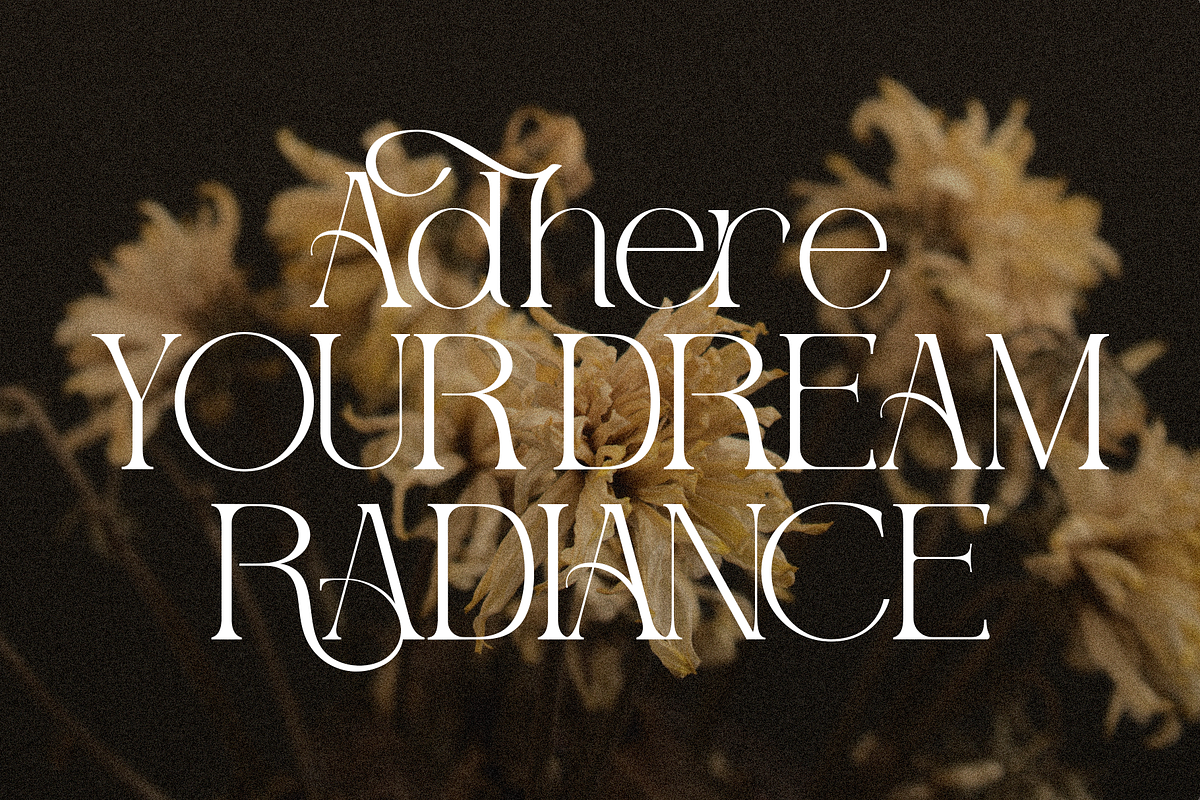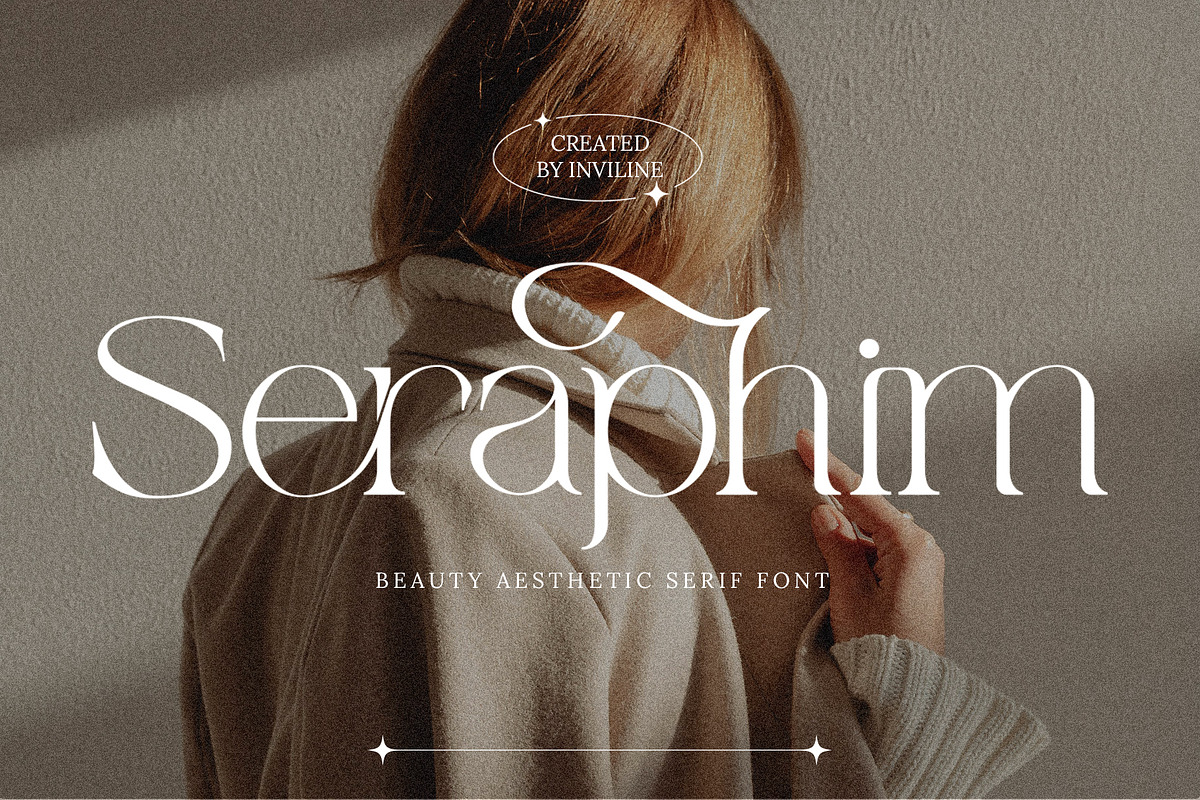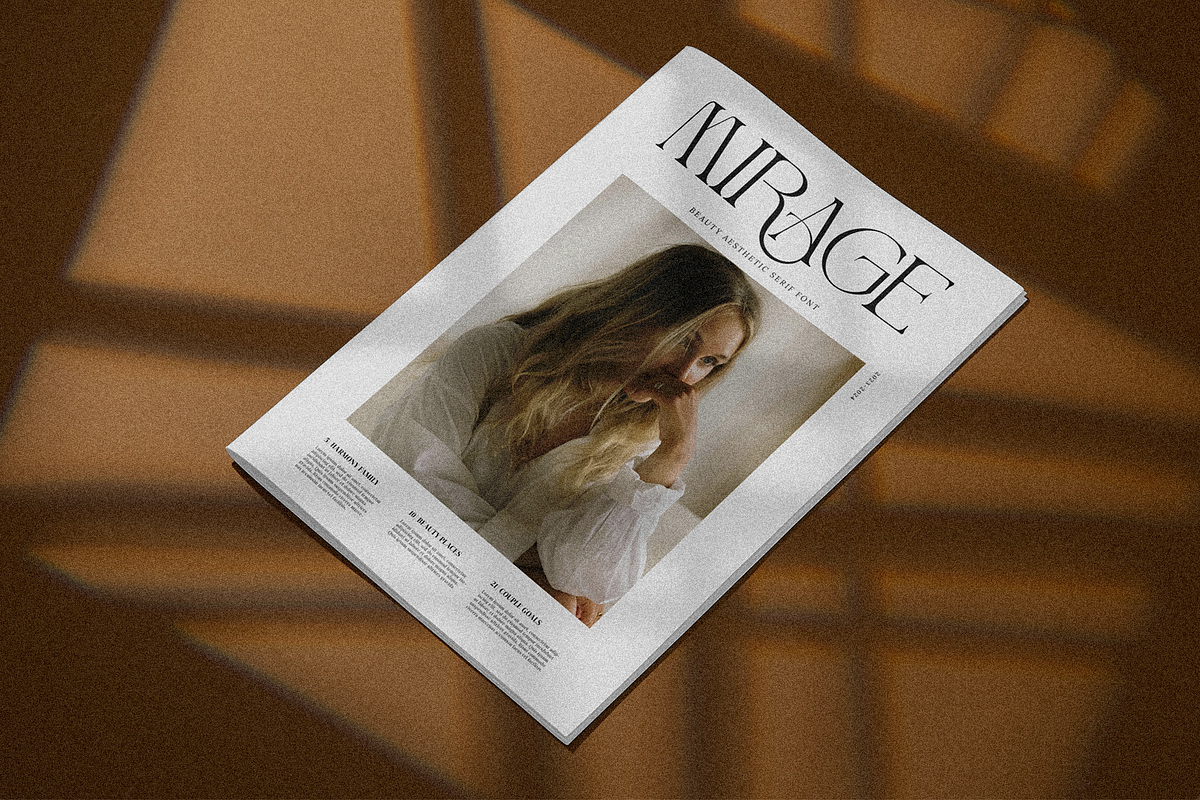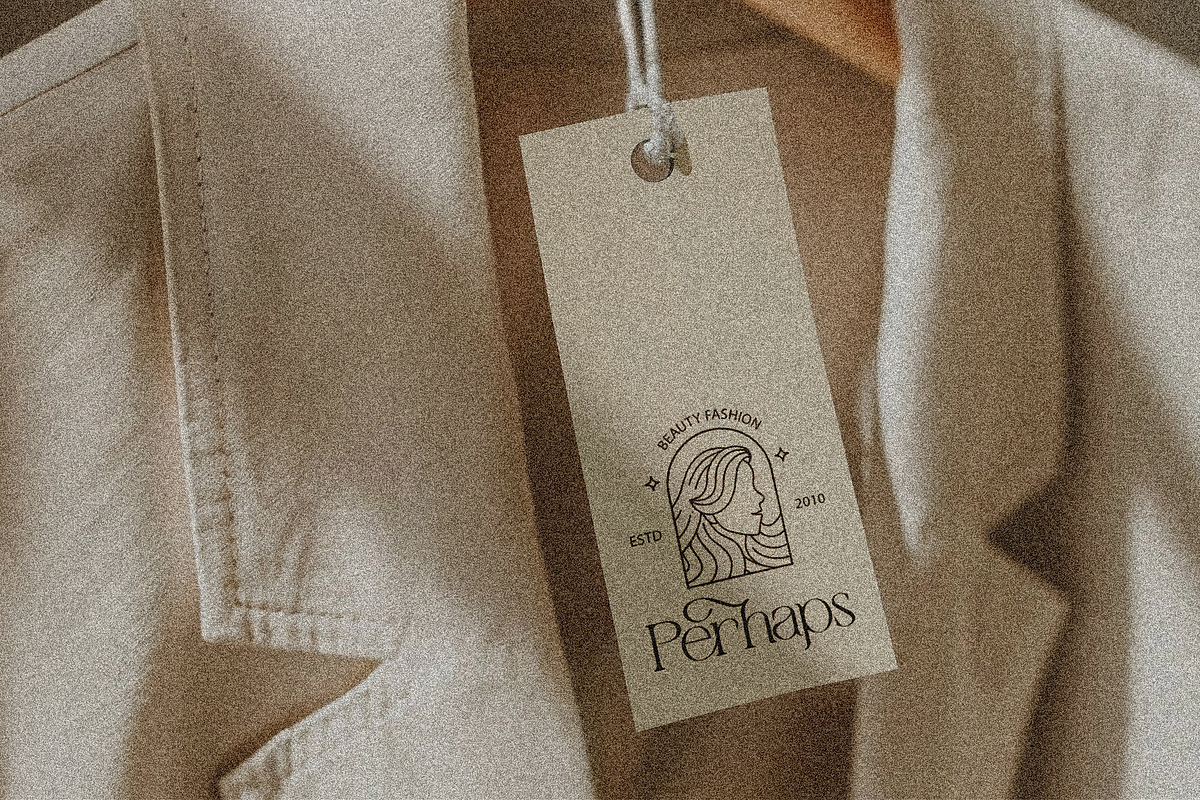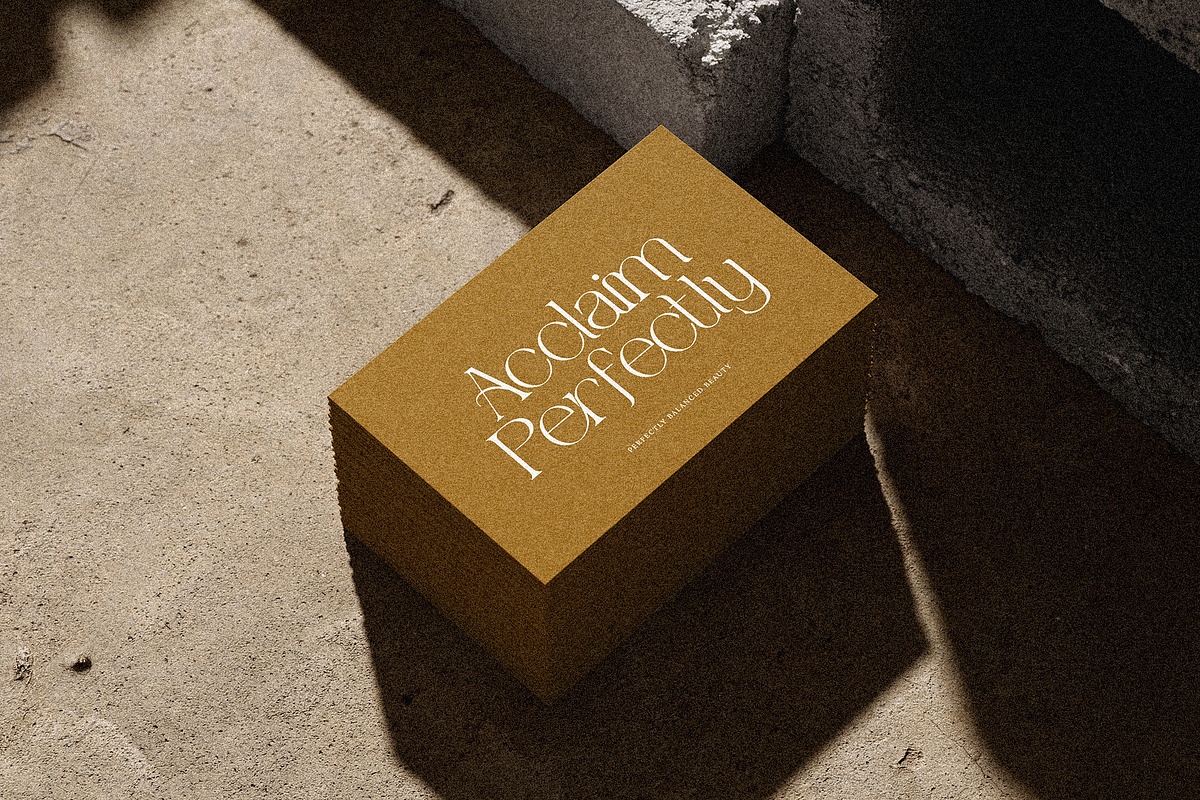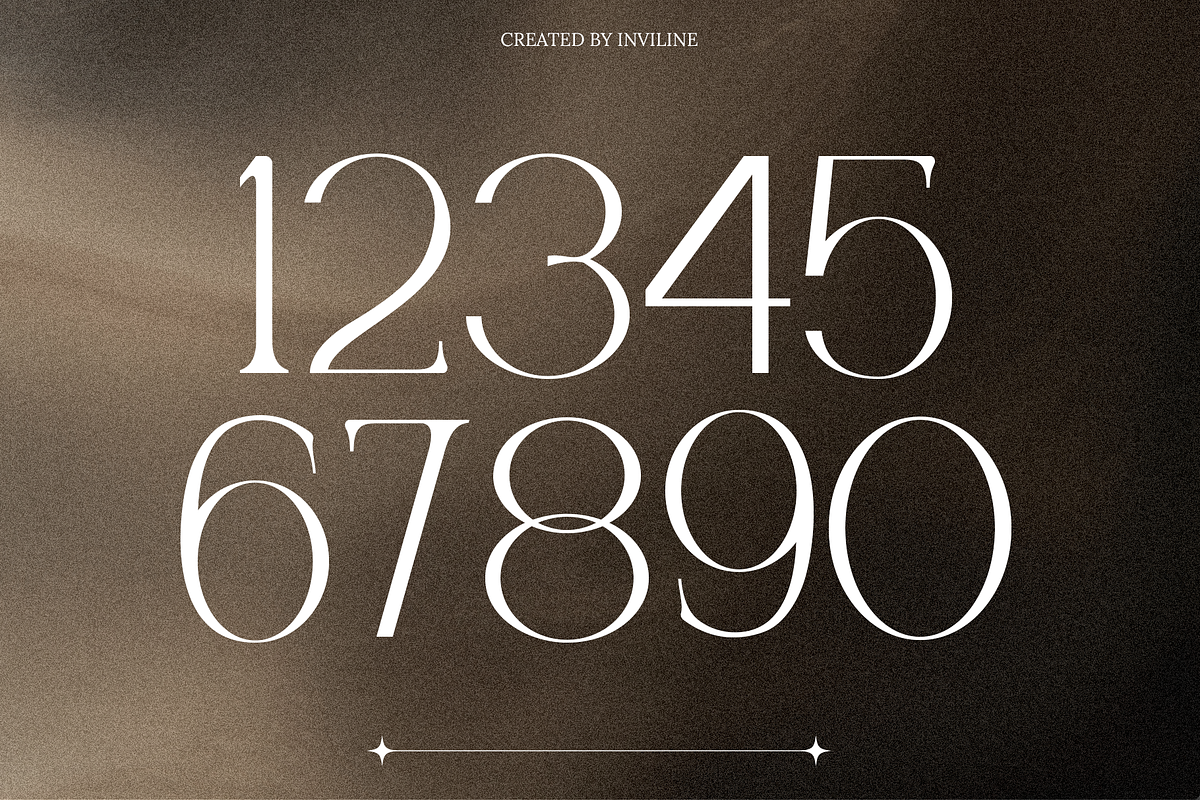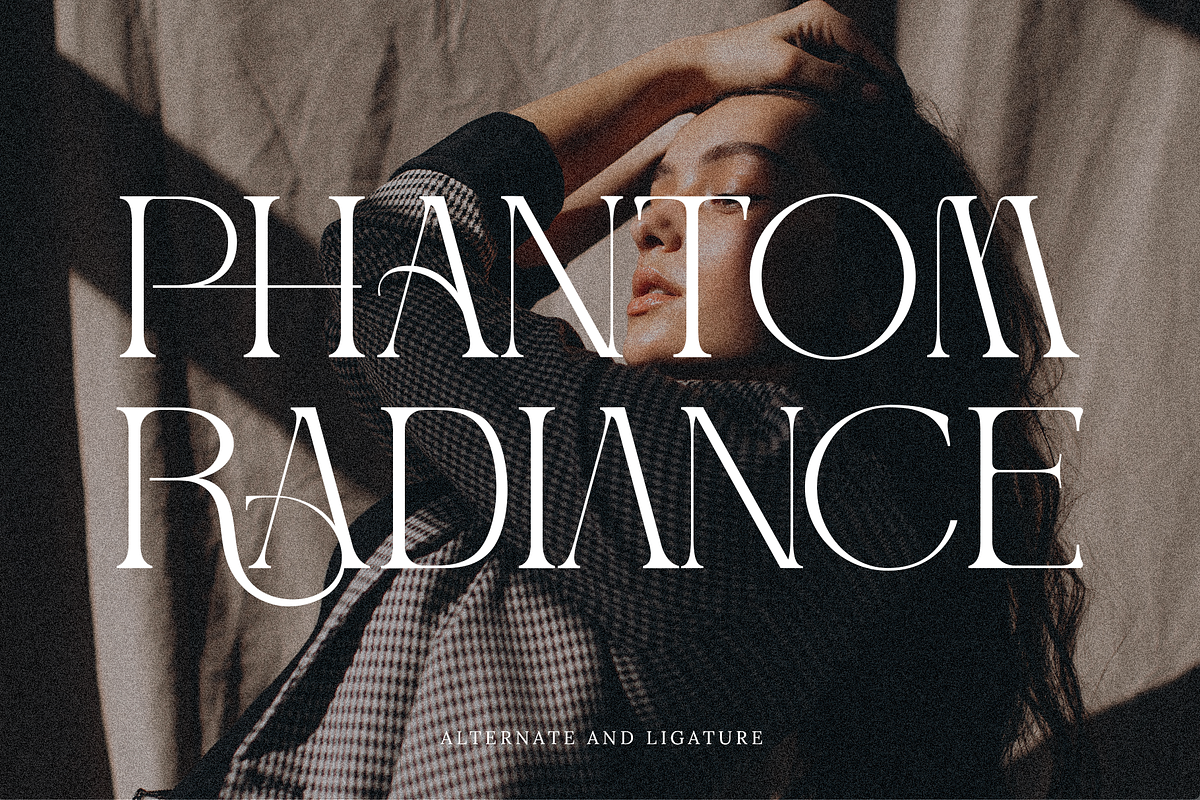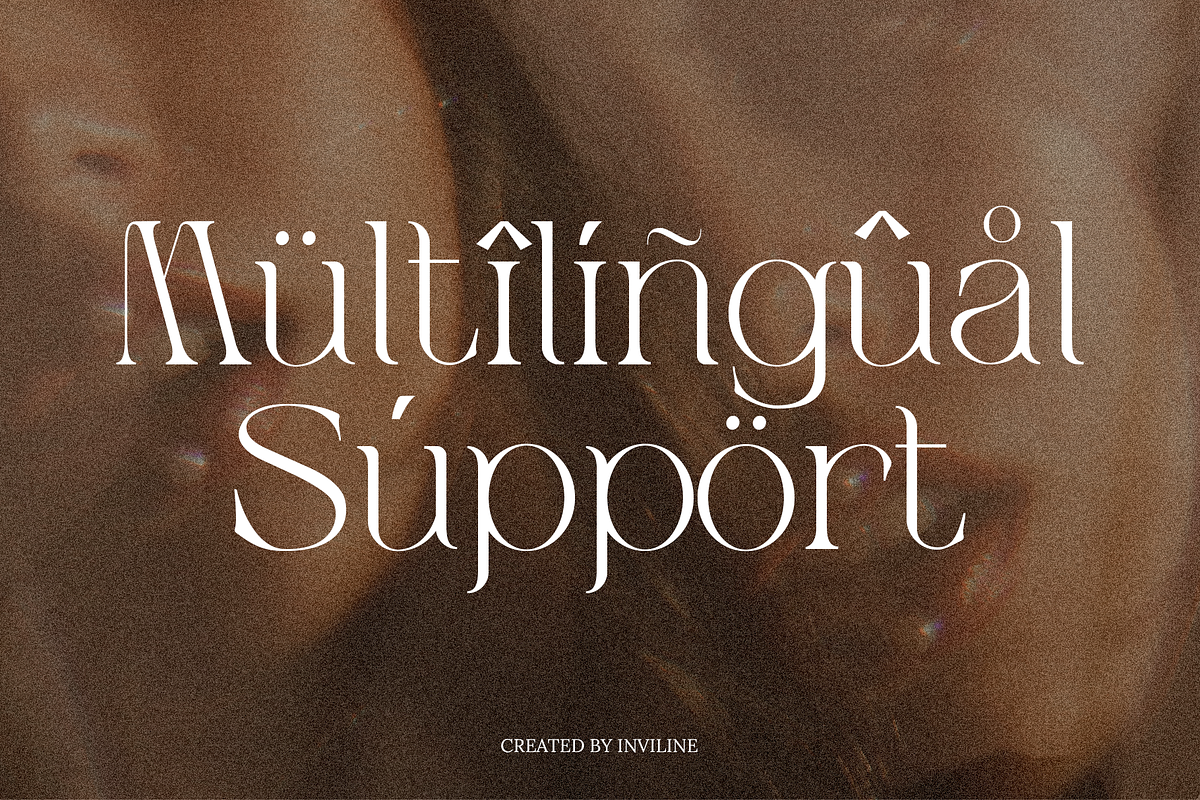
Seraphim - Aesthetic Serif Font
Seraphim - Serif Font
Bring a touch of Aesthetic-femme to your designs with this meticulously crafted font collection. Perfect for adding a elegance vibes to your branding, packaging, logos, and more.
- Uppercase & Lowercase Characters: Fully designed for a complete typographic experience
- Numerals & Punctuation: All the numbers and punctuation marks you need for any design task
- Multilingual Support: Includes characters for multiple languages, ensuring global usability
- High-Quality Design: Each font is crafted with attention to detail, ensuring a polished and professional look